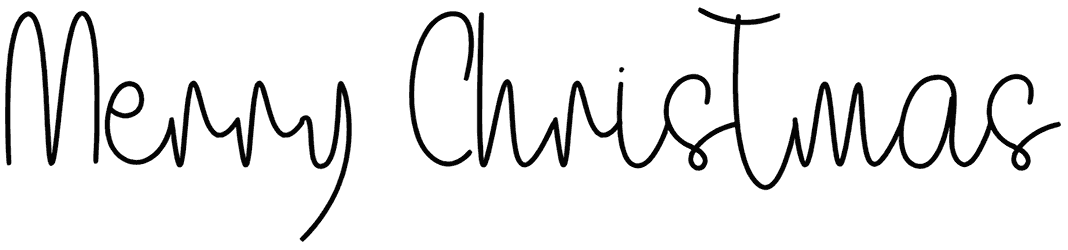
Merry Christmas Font
If you need Merry Christmas to set a festive mood in your Christmas posters, it’s okay. You can go ahead and do that. But if that’s the only thing you can think of to do with this playful font, then we’ve got a problem.
With a dreamy font like this, ready to bring warmth and excitement to your lettering with a nice handwriting style, you shouldn’t hesitate at all about adding this Christmas font to your spring designs, diary covers, and more.